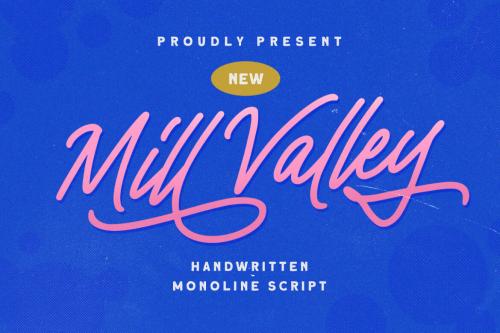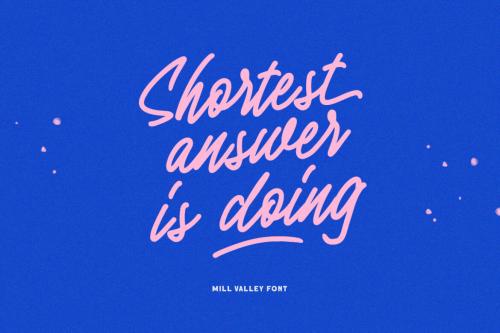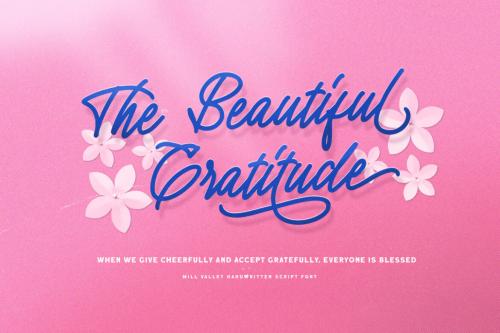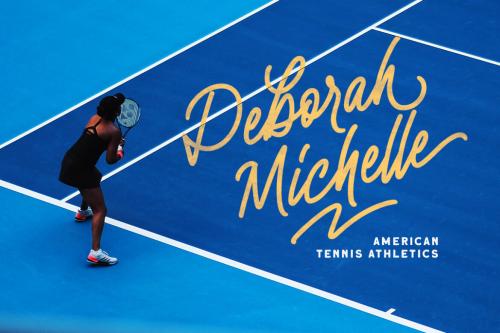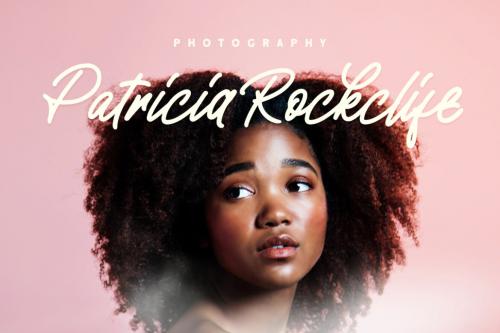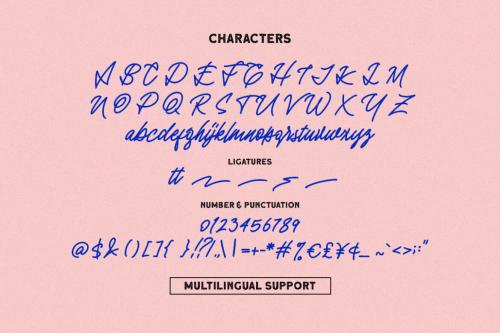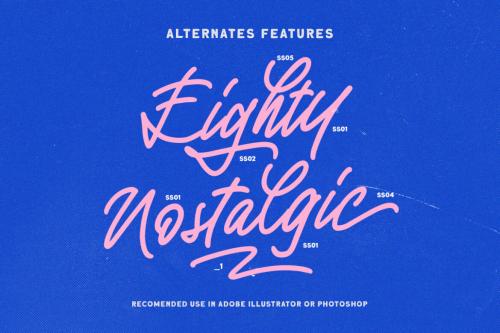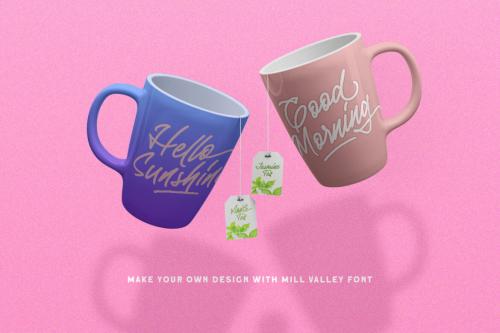
Deeezy - Mill Valley - Monoline Script
Mill Valley is a monoline script with a casual and fun theme. This type of font perfectly made to be applied especially in logo, headline, signage and the other various formal forms such as invitations, labels, logos, magazines, books, greeting u002F wedding cards, packaging, fashion, make up, stationery, novels, labels or any type of advertising purpose.